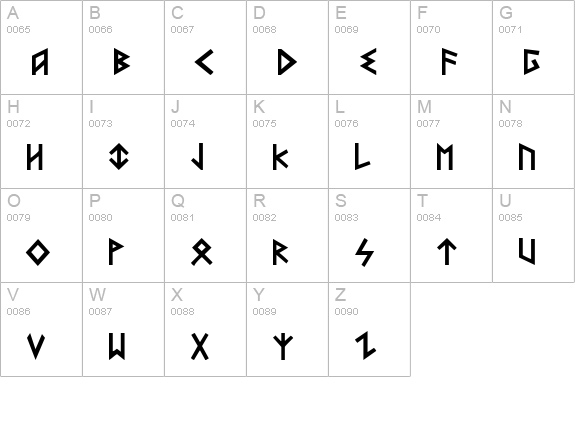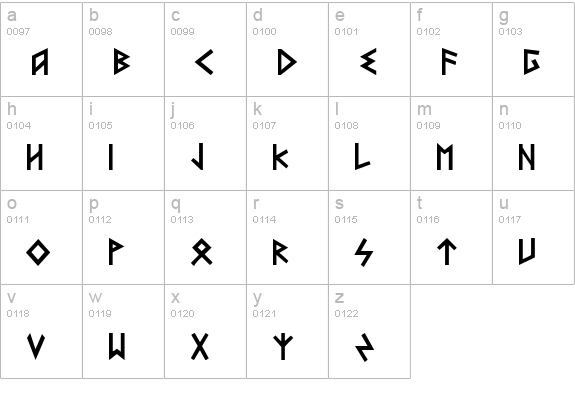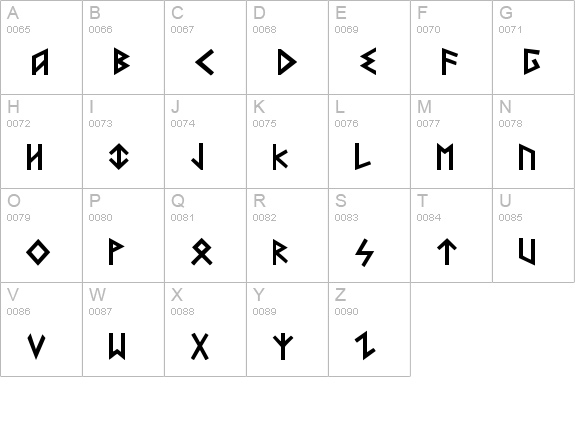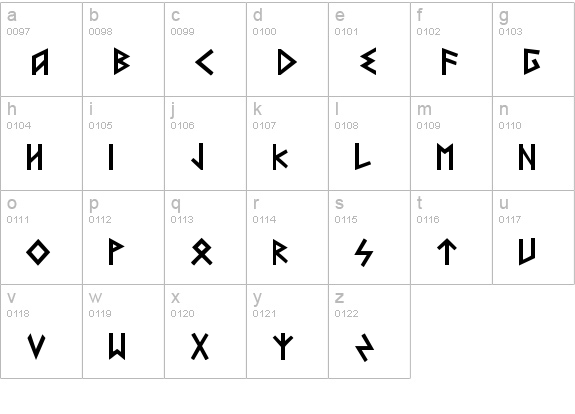
Introducing Heorot font, a modern and stylish typeface that exudes elegance and sophistication. With its sleek lines and unique design, Heorot font is perfect for a wide range of design projects, from branding to editorial design. This versatile font is sure to make your text stand out and leave a lasting impression on your audience. The best part? Heorot font is completely free to download at FontsMarket.com. Simply visit the website and get instant access to this stunning font for all your creative needs. Don't miss out on this opportunity to elevate your designs with the sleek and stylish Heorot font. Download it today and take your projects to the next level.